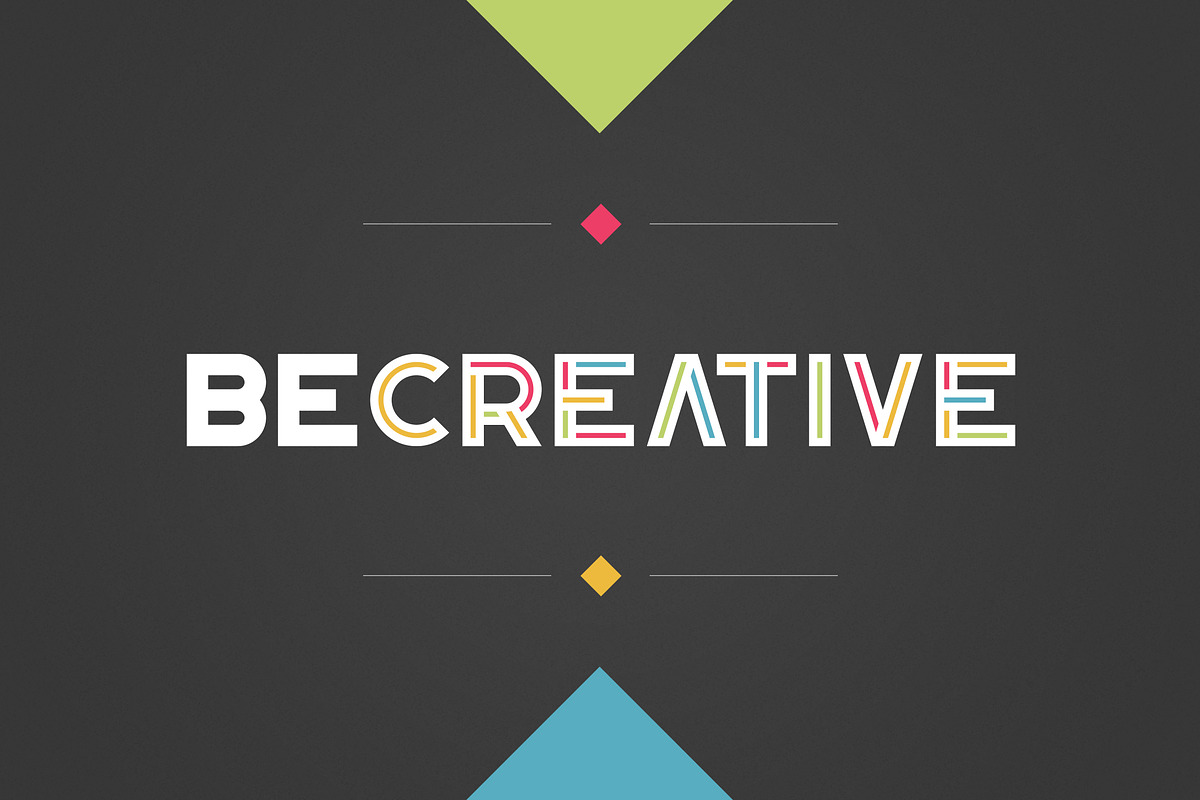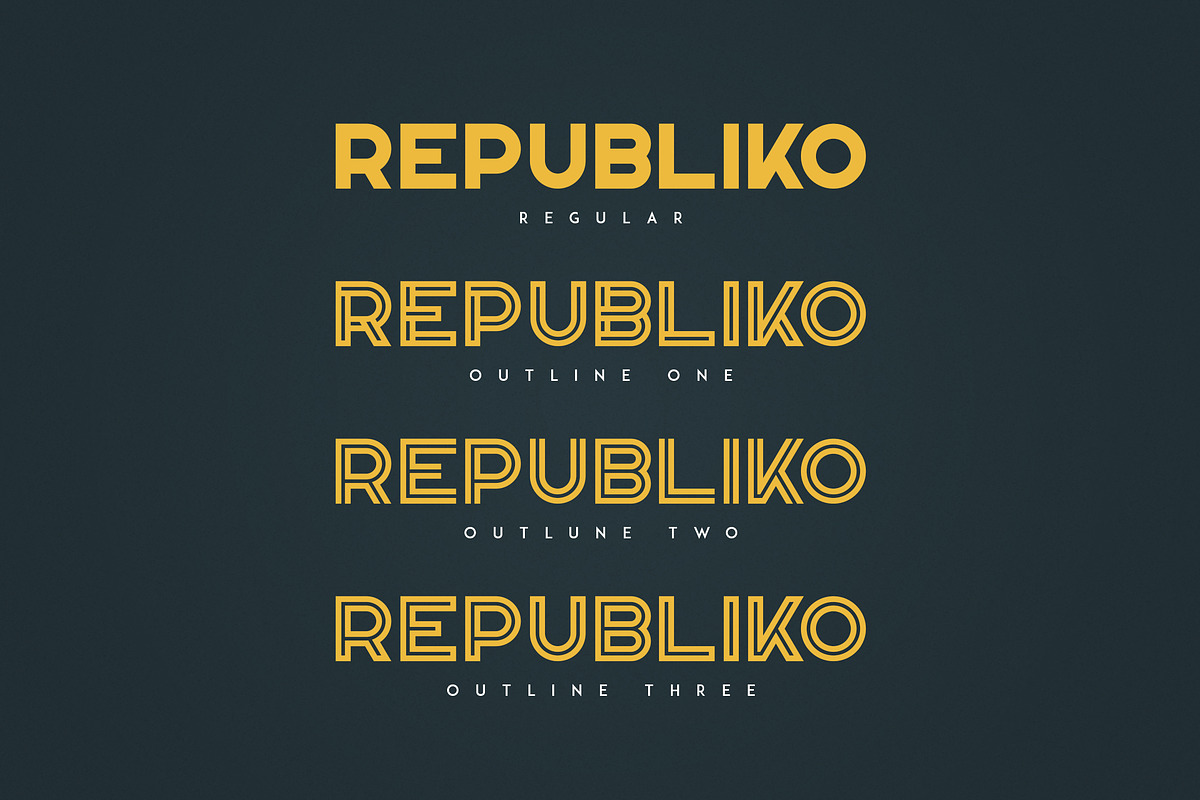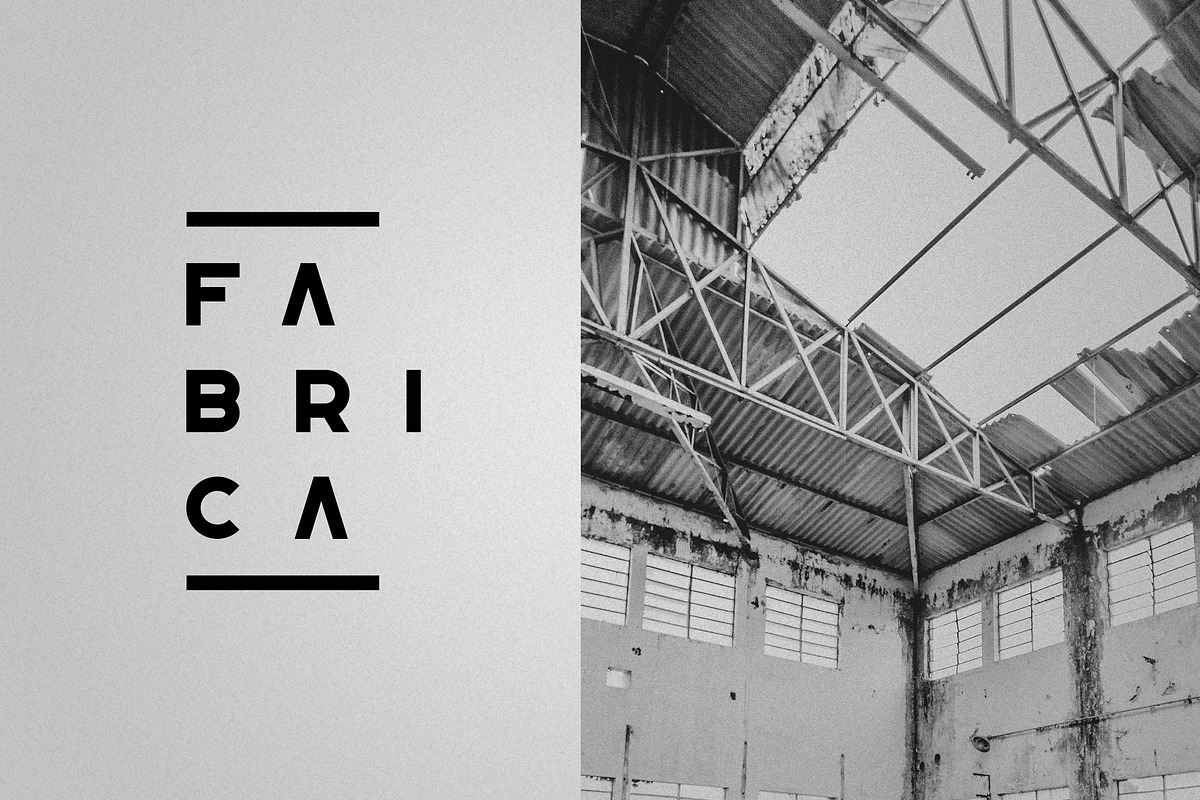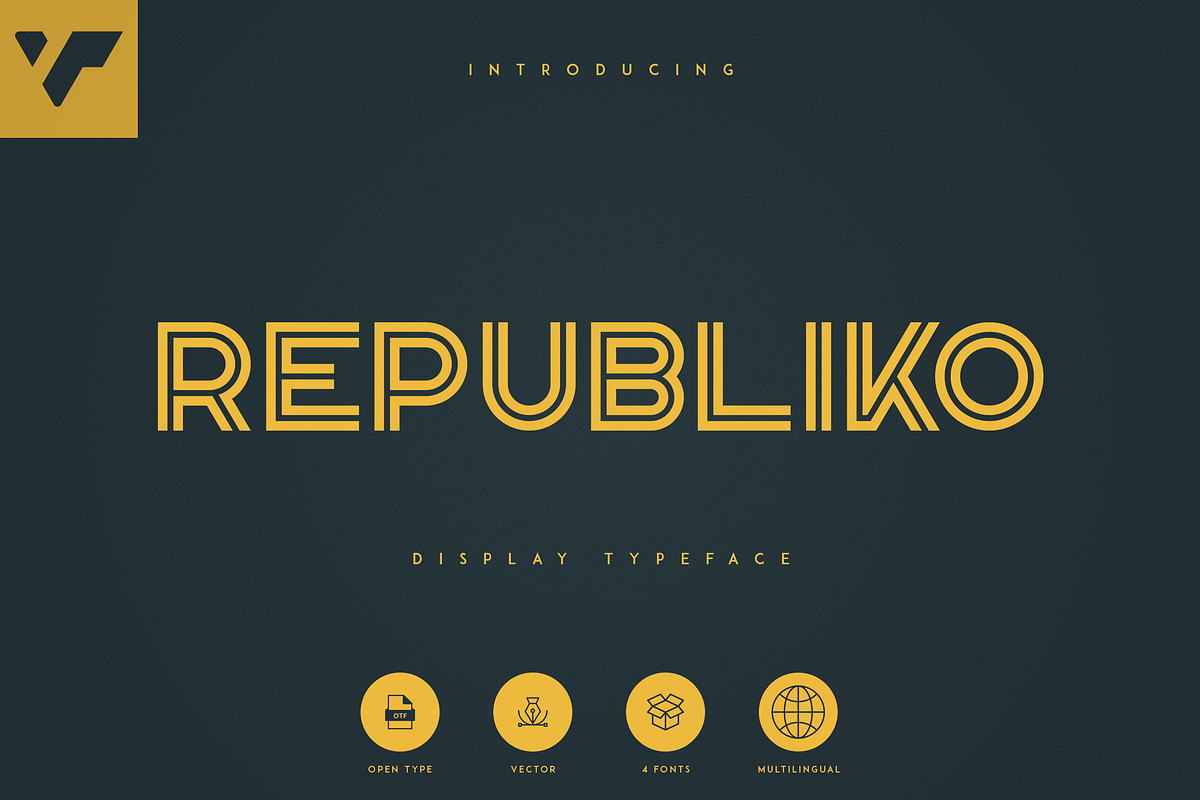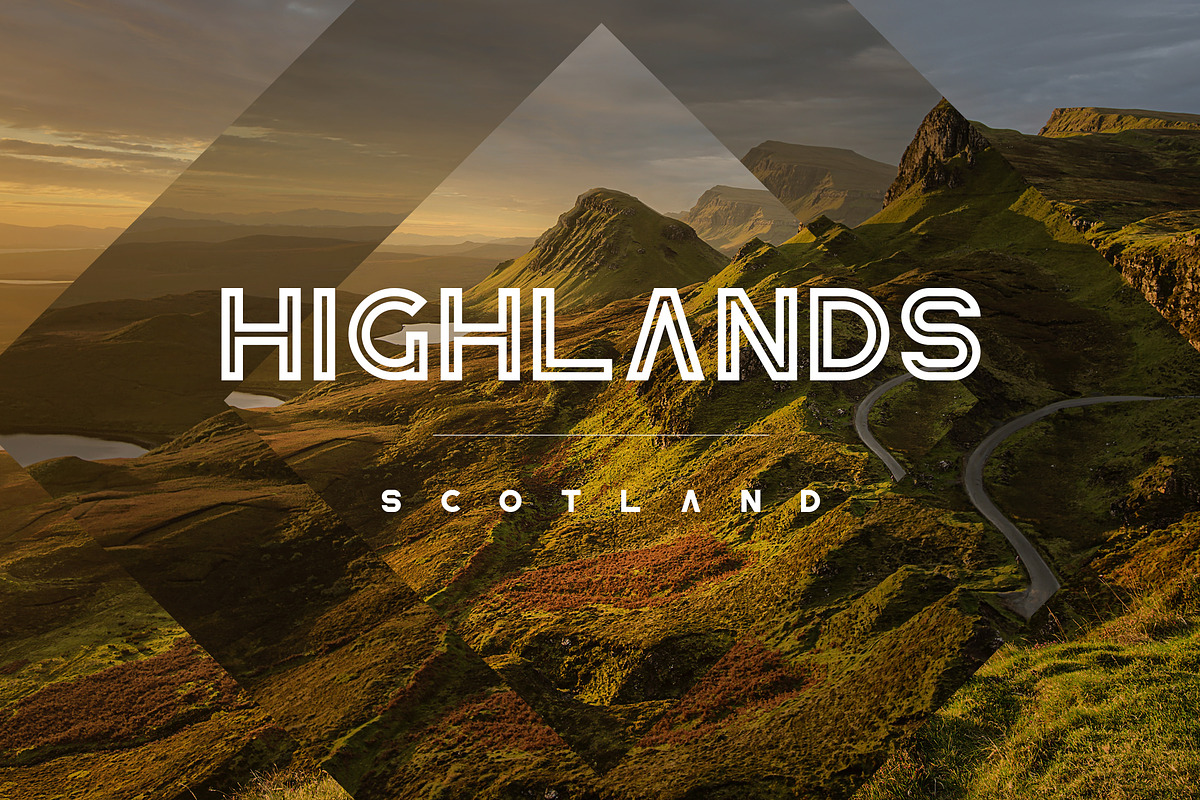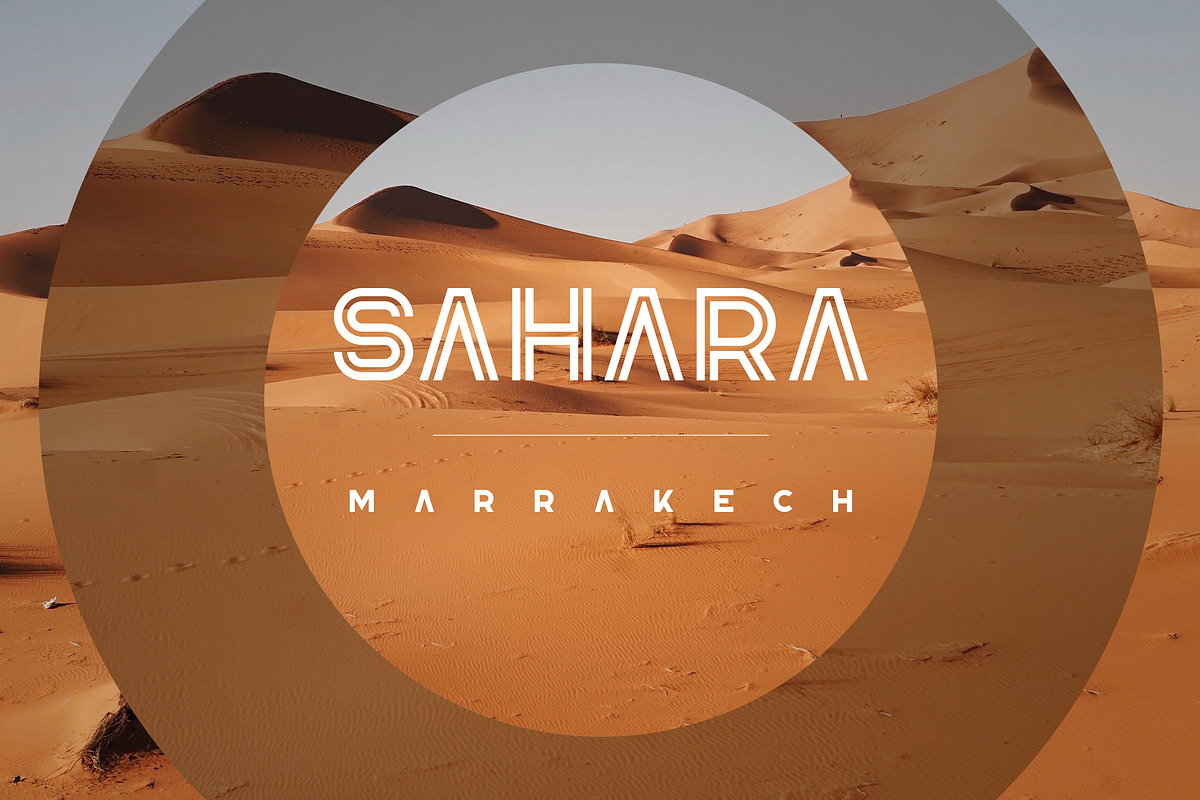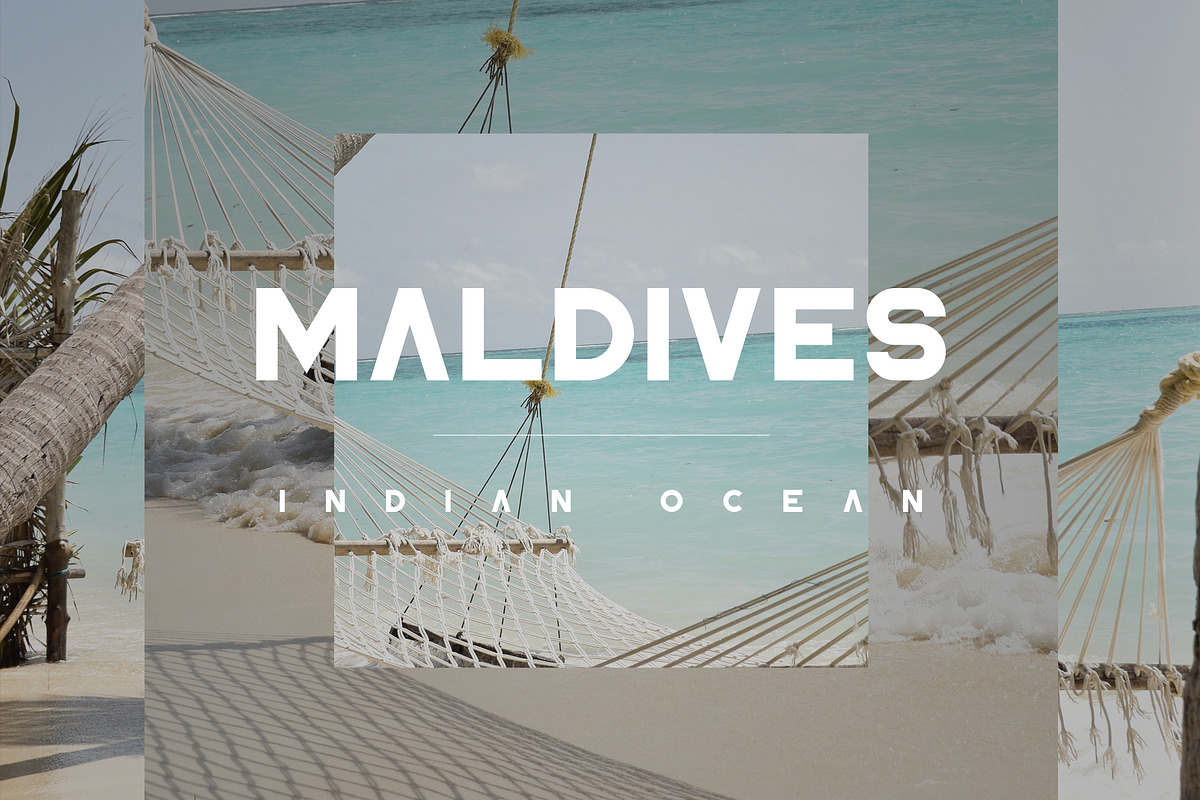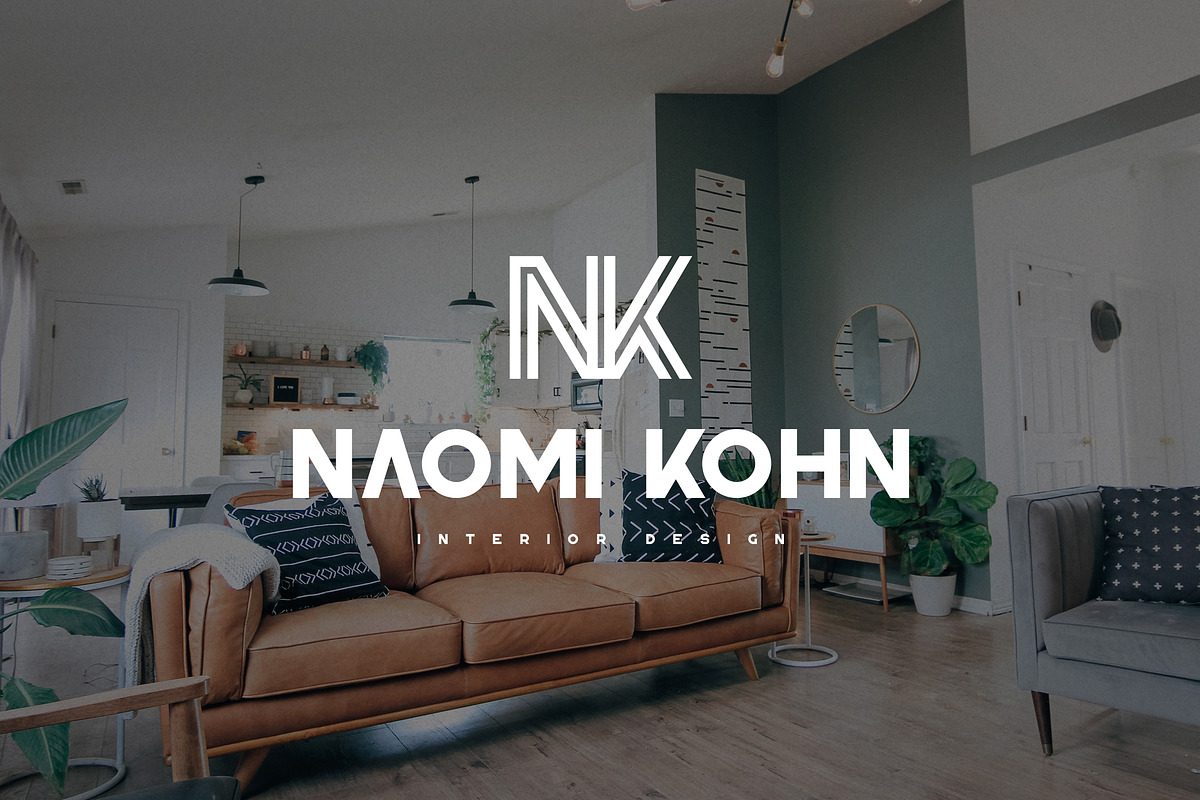
Republiko - Display Typeface
Introducing Republiko - Display Typeface - 4 styles
Repubiko is bold, clean typeface with 4 styles and multilingual support. It's a very versatile font that works great in large and small sizes.
Republiko is perfect for branding projects, home-ware designs, product packaging, magazine headers - or simply as a stylish text overlay to any background image.